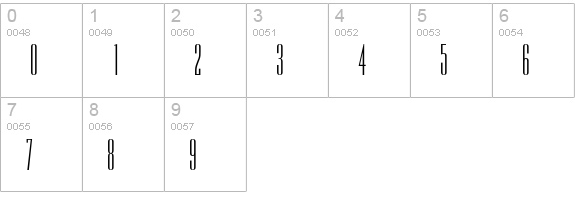
OPTIEmpirePro Font Details
Introducing OPTIEmpirePro, a sleek and modern font that exudes sophistication and elegance. This versatile typeface is perfect for a wide range of design projects, from branding to advertising to editorial layouts. With its clean lines and balanced proportions, OPTIEmpirePro adds a touch of refinement to any design. What sets OPTIEmpirePro apart is not only its impeccable design, but also the fact that it is available for free. Yes, you read that right - this premium font can be downloaded at no cost from FontsMarket.com. Whether you are a seasoned designer looking to add a new font to your collection or a beginner in need of high-quality typography, OPTIEmpirePro is the perfect choice. Don't miss out on this incredible opportunity to enhance your projects with this exquisite font - download OPTIEmpirePro today and take your designs to the next level.